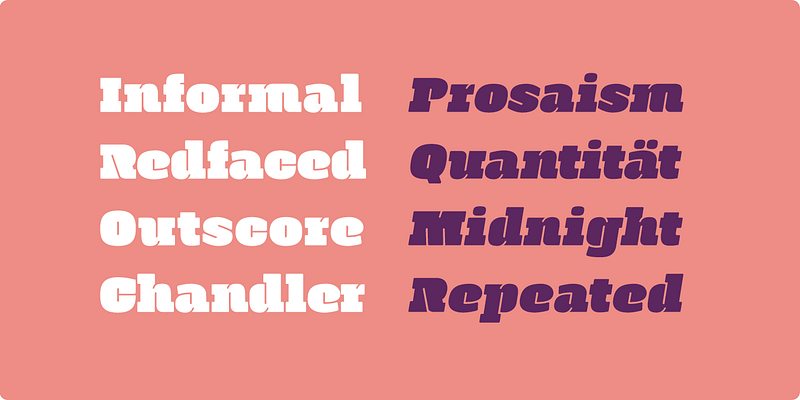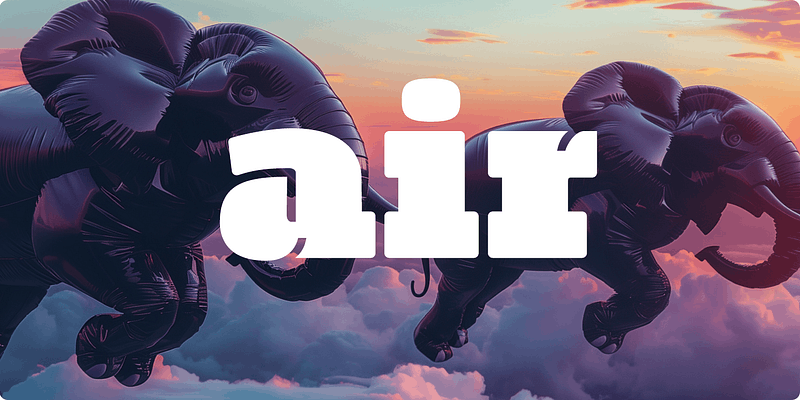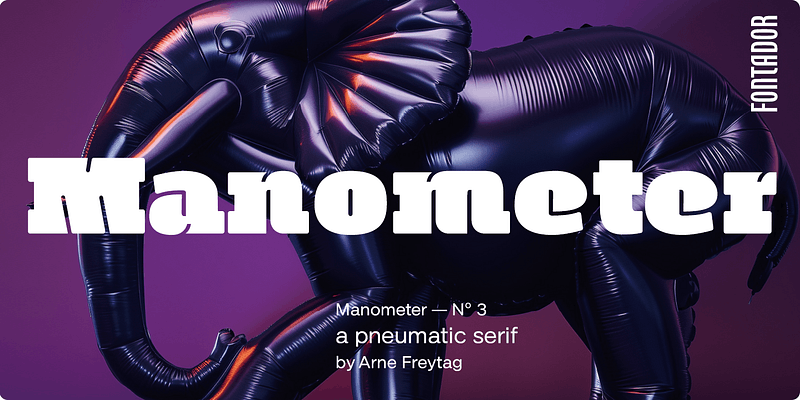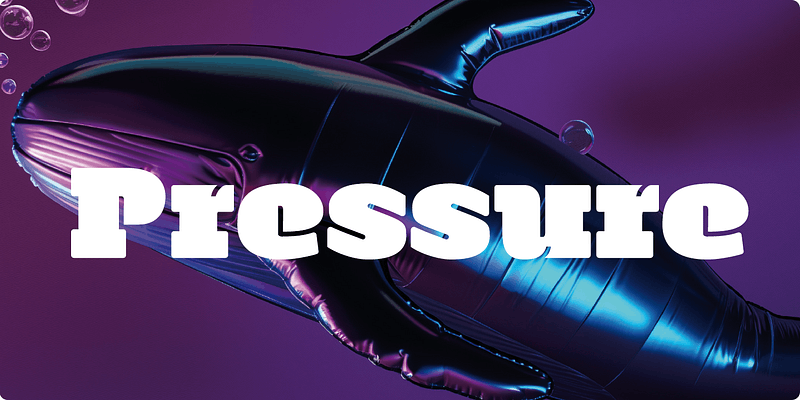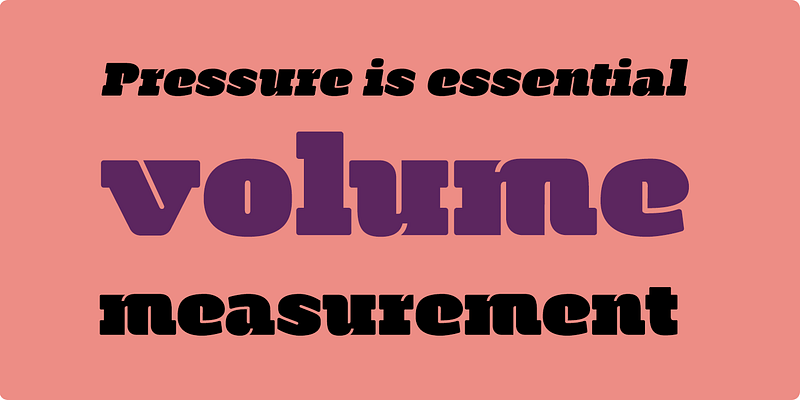
Manometer is a pneumatic ultra-black slab serif typeface. Rounded corners ease up the massive, geometric letterforms impress the reader in advertising and editorial settings.